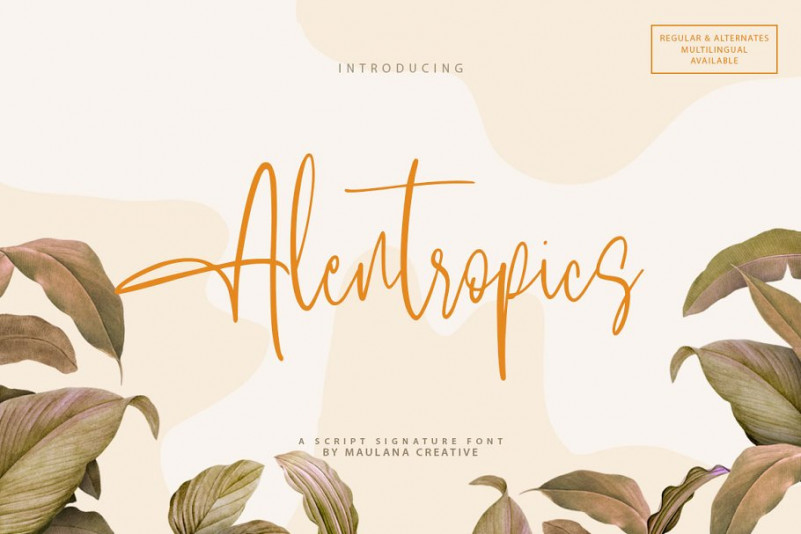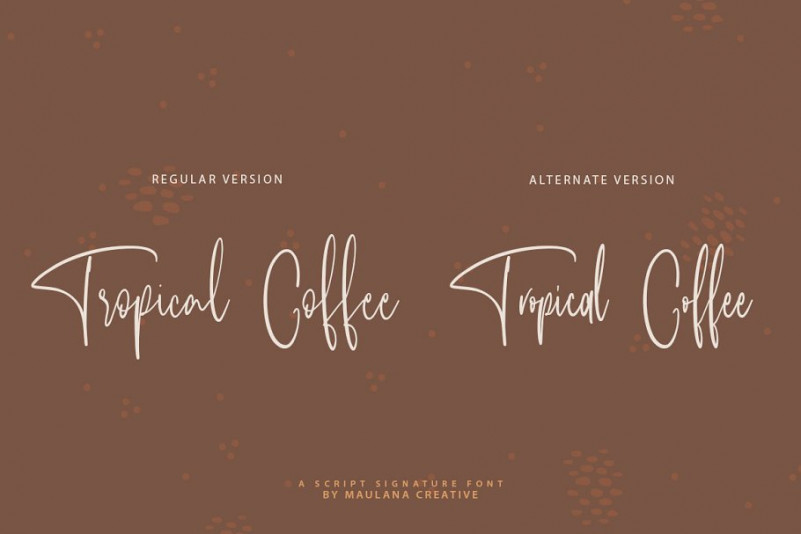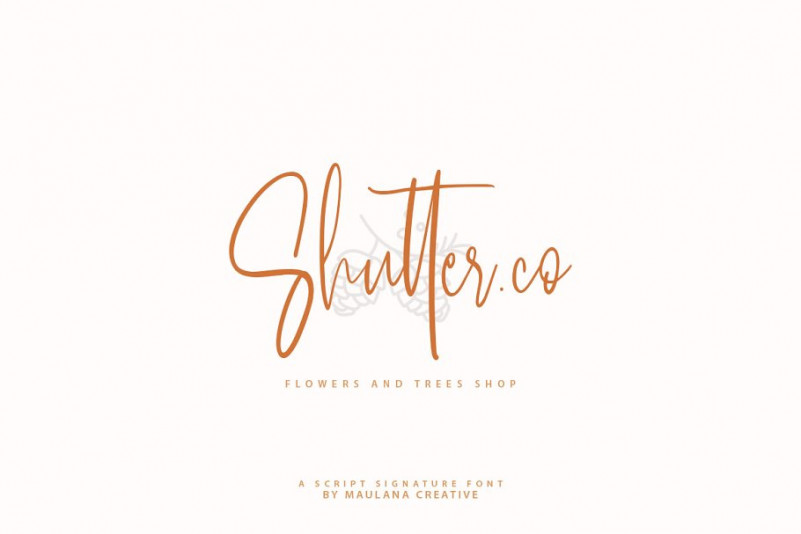
Alentropics Font
This font include Regular and Alternate version. Give your designs an authentic handcrafted feel. “Alentropics” is perfectly suited to signature, stationery, logo, typography quotes, magazine or book cover, website header, clothing, branding, packaging design and more.